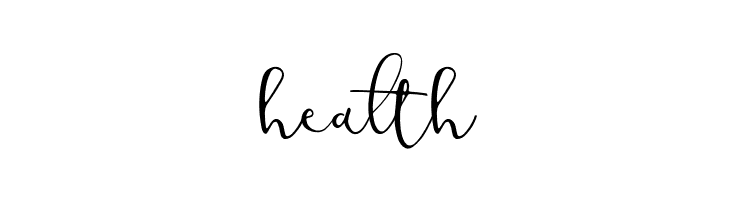
An elegant, cursive font with intricate loops and swashes.
A modern, bold italic font with smooth curves and a compact design.
A playful and elegant script font with bold strokes and high contrast.
A bold, playful handwritten font with thick, rounded strokes.
A modern, light, italic sans-serif font with clean lines and excellent legibility.
A flowing, cursive script with elegant, connected letters and subtle flourishes.
A bold, dynamic font with sharp, angular strokes and a sense of movement.
Designers love ModestyRegular, Nordica BoldItalic, GIANTYPO, Wake Up Honey and Little Betty for their clean forms and broad use cases — from brand identities to landing pages and posters.